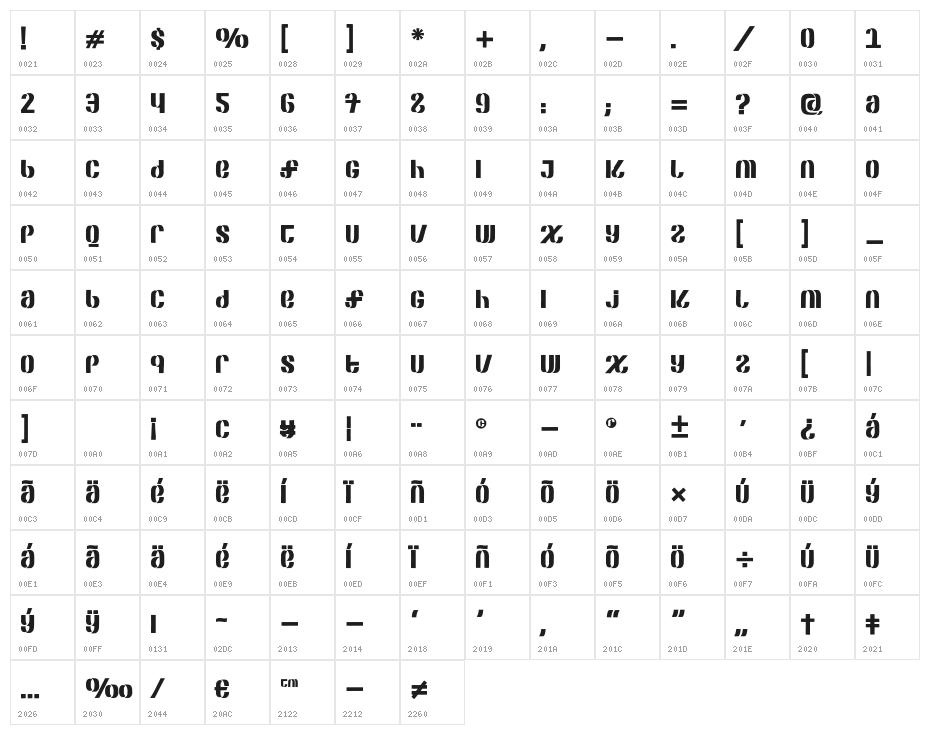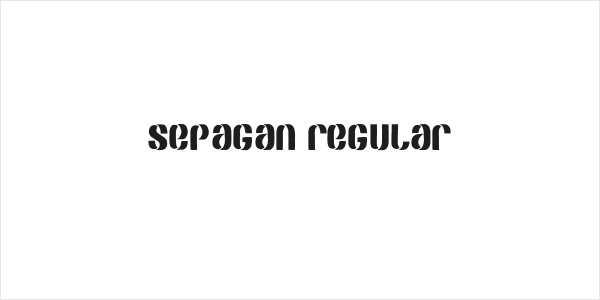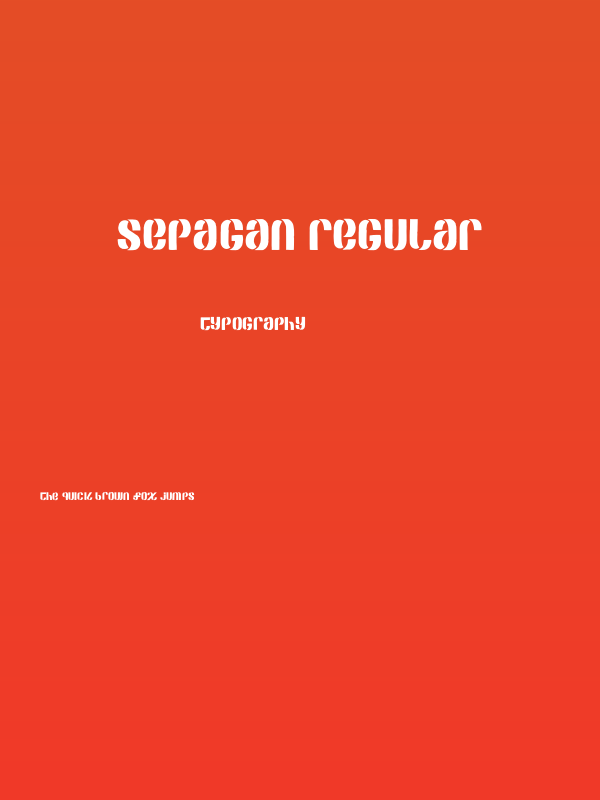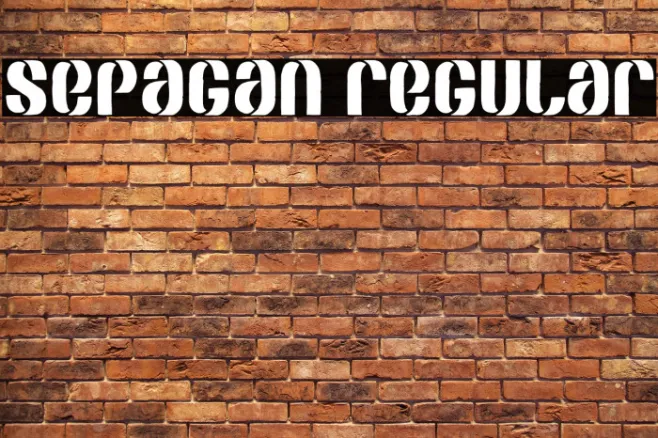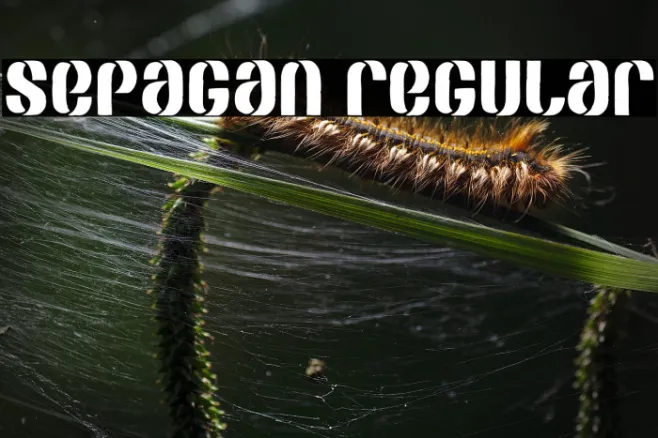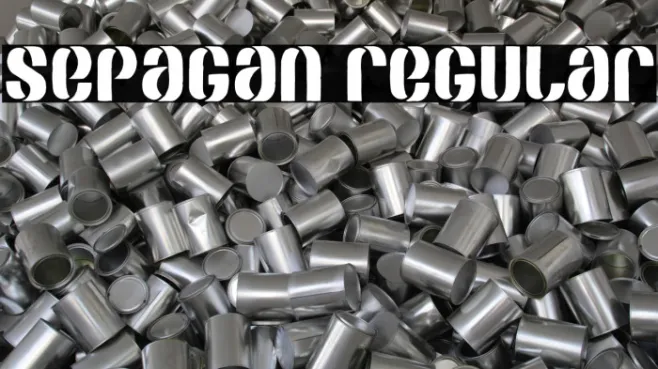
SEPAGAN Regular Font
SEPAGAN Regular Description
This font features a bold, geometric design with a strong emphasis on vertical and horizontal lines. The characters are constructed with a stencil-like appearance, creating a modern and industrial feel. The uppercase and lowercase letters share a consistent style, with rounded edges and uniform stroke widths. The numbers and special characters maintain the same aesthetic, ensuring a cohesive look across all glyphs. The font's unique style makes it stand out, offering a distinctive and eye-catching appearance.